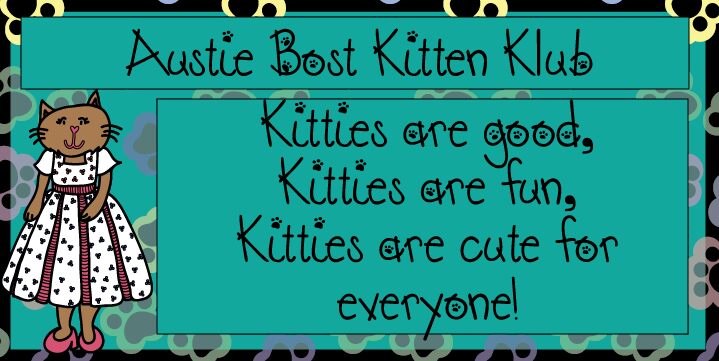
Austie Bost Kitten Klub by Austin Owens is a free feline-themed decorative display font with tall, loosely drawn letters and a wiry monoline build. Paw prints tucked inside several rounded forms turn the alphabet into part lettering, part illustration.
Pet-centered design gives this font a natural place on animal rescue posters, veterinary event materials, merchandise, and packaging for cat treats or toys. The uneven angles, oversized loops, and playful paw motifs also suit children's publishing and digital graphics about kittens, since the letters can join the animal theme as small illustrated signs rather than appearing as a generic title or label.